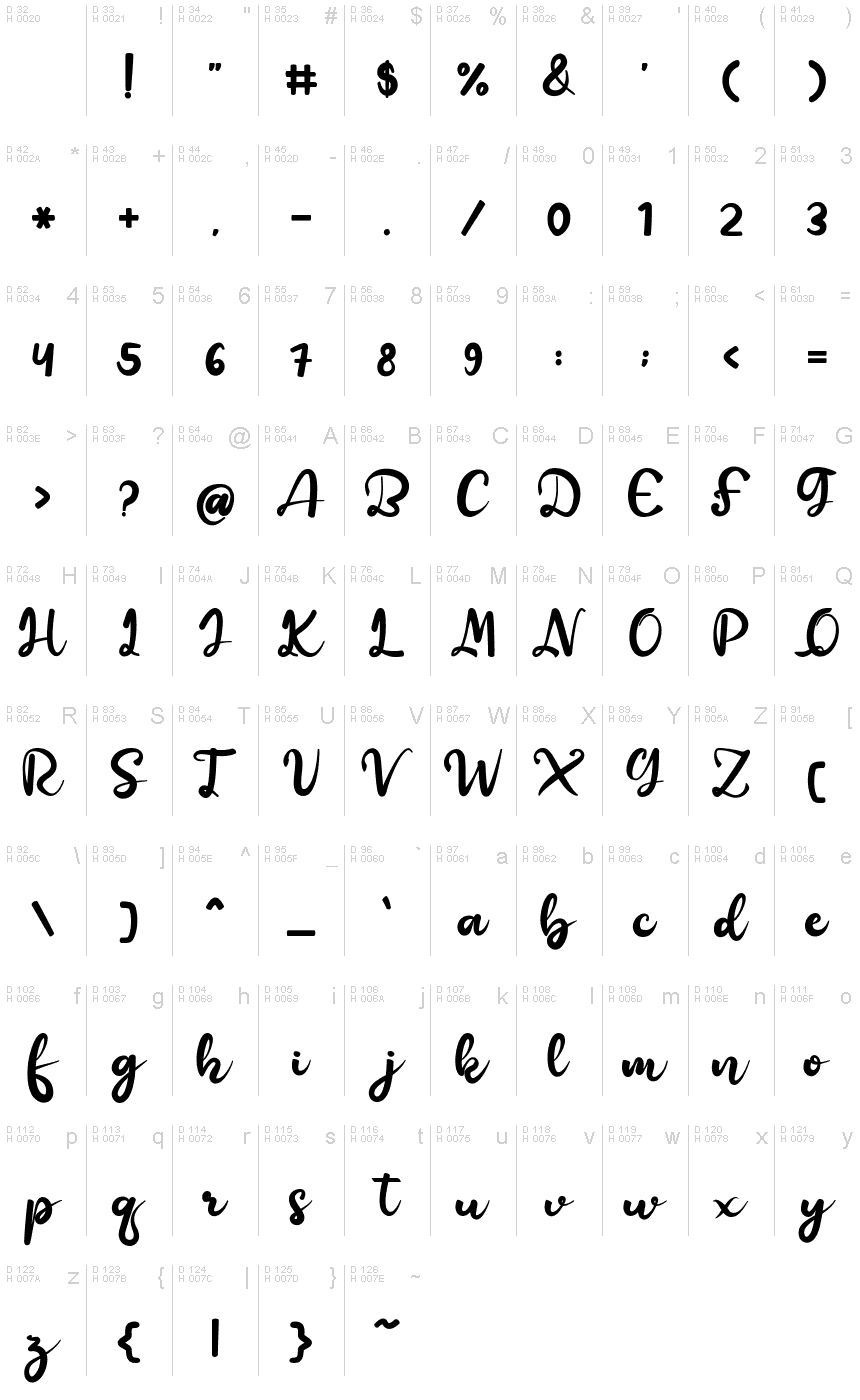
Happiness
Happiness is a clean, bouncy, funny, cute font. It can be incorporated into many designs including brand, book cover, logos, wedding invitations, posters, and many more.